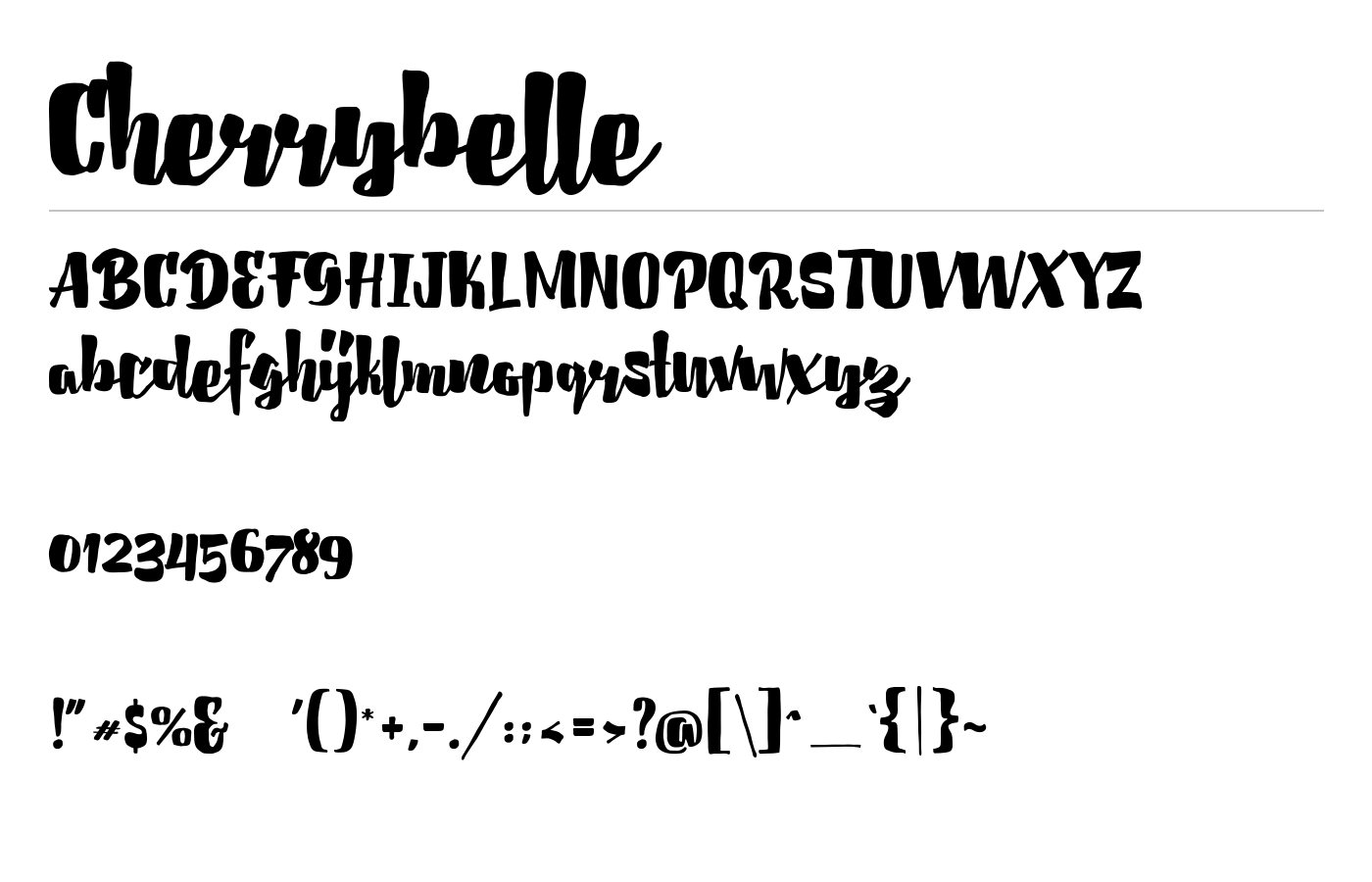
Cherrybelle is a bold and playful brush script font with a lively, hand-painted feel. Its thick, irregular strokes and flowing connections give it a fun and casual personality, perfect for creative, youthful branding and eye-catching headlines. This font works best in logos, posters, and packaging where a vibrant, friendly tone is desired.
Cherrybelle
About Cherrybelle
| Font family | Cherrybelle |
| Release date | 2015-03-18 |
| Designer | Artimasa |